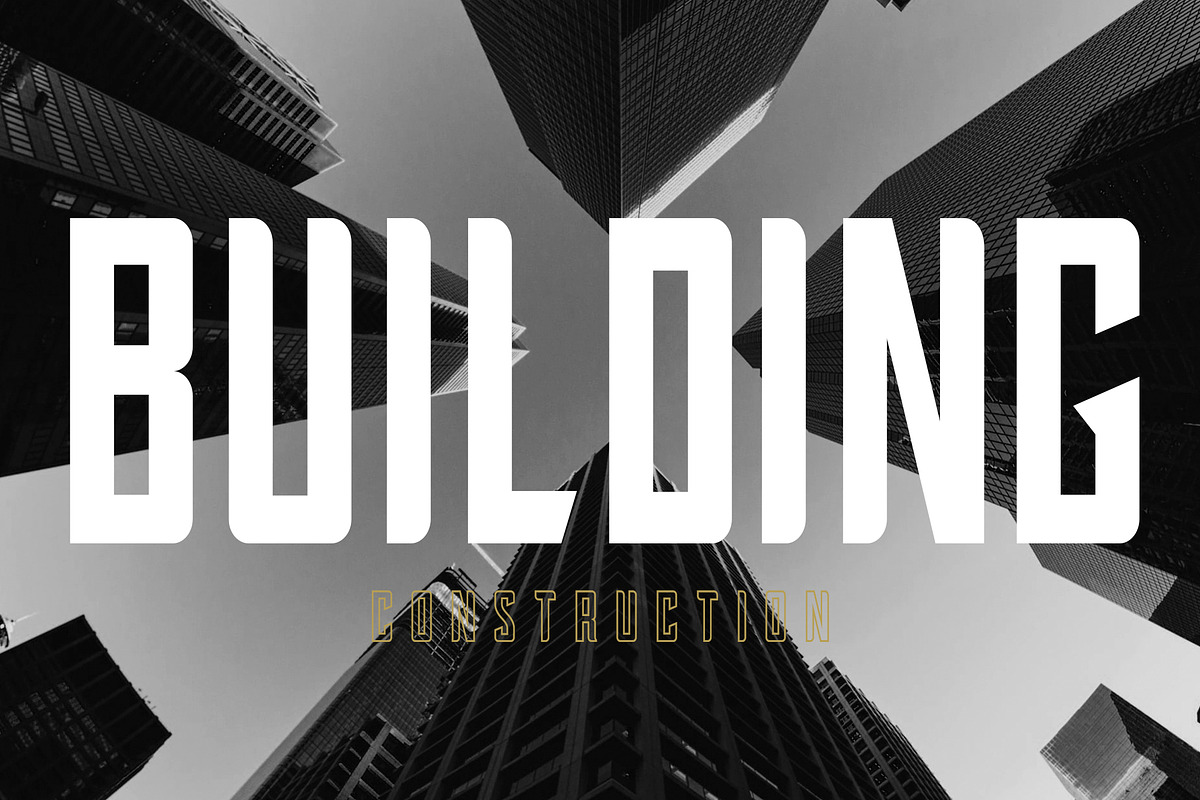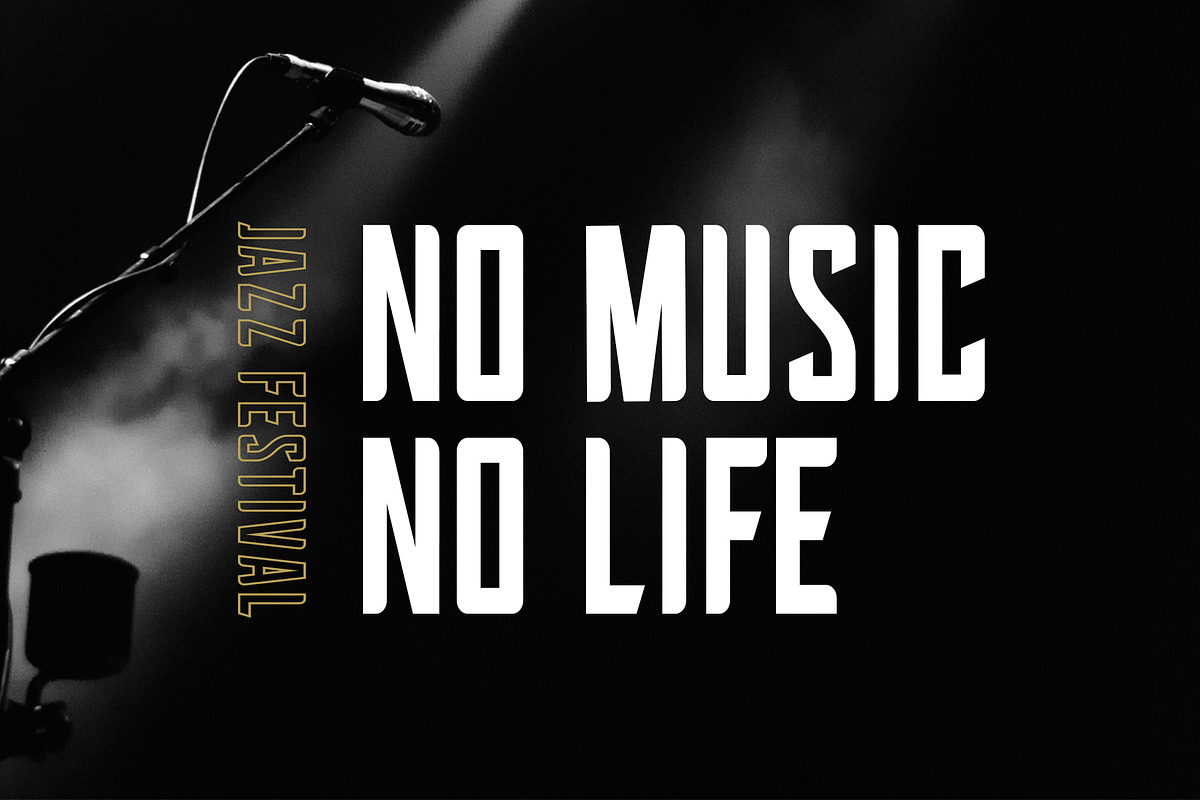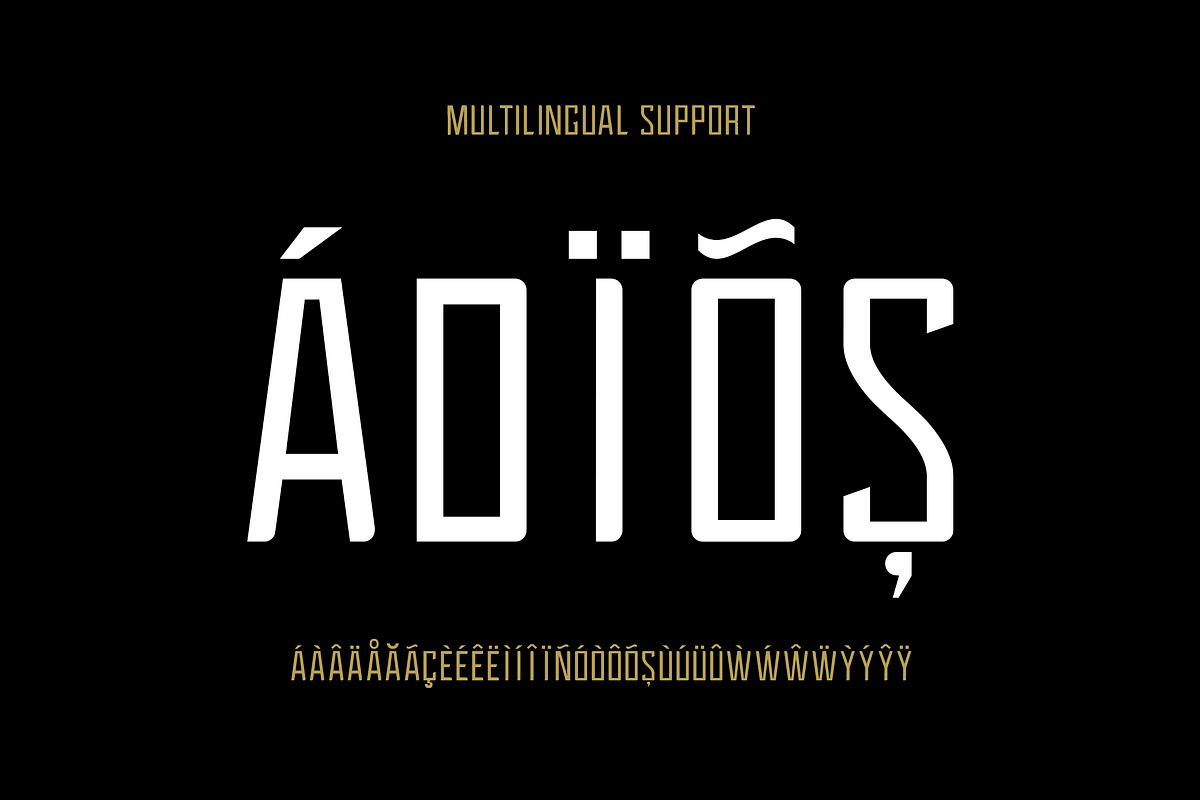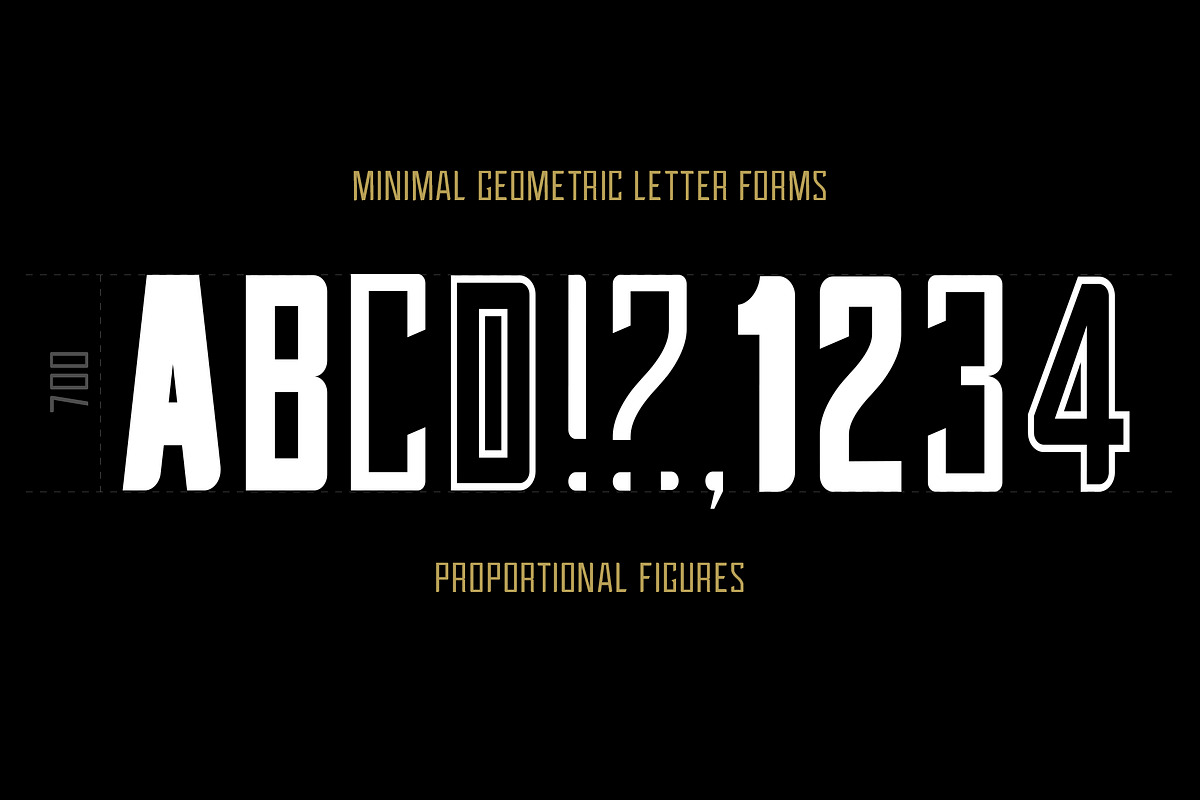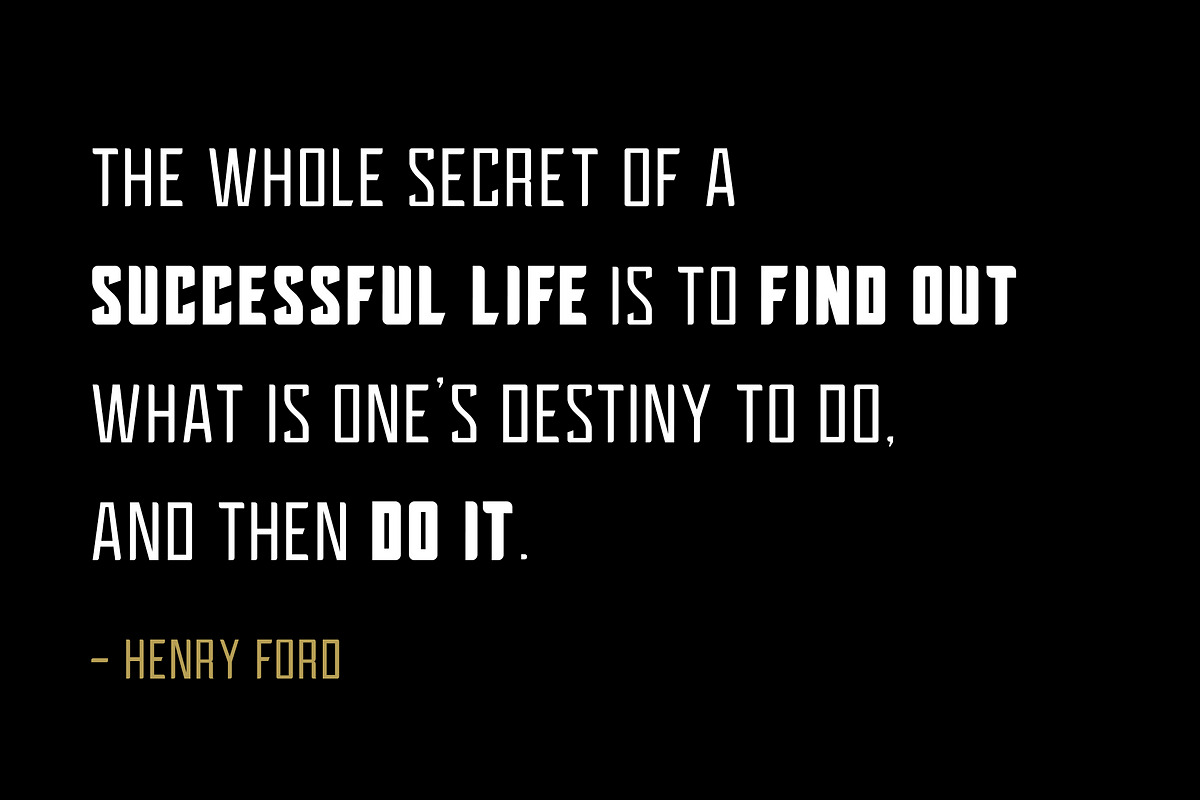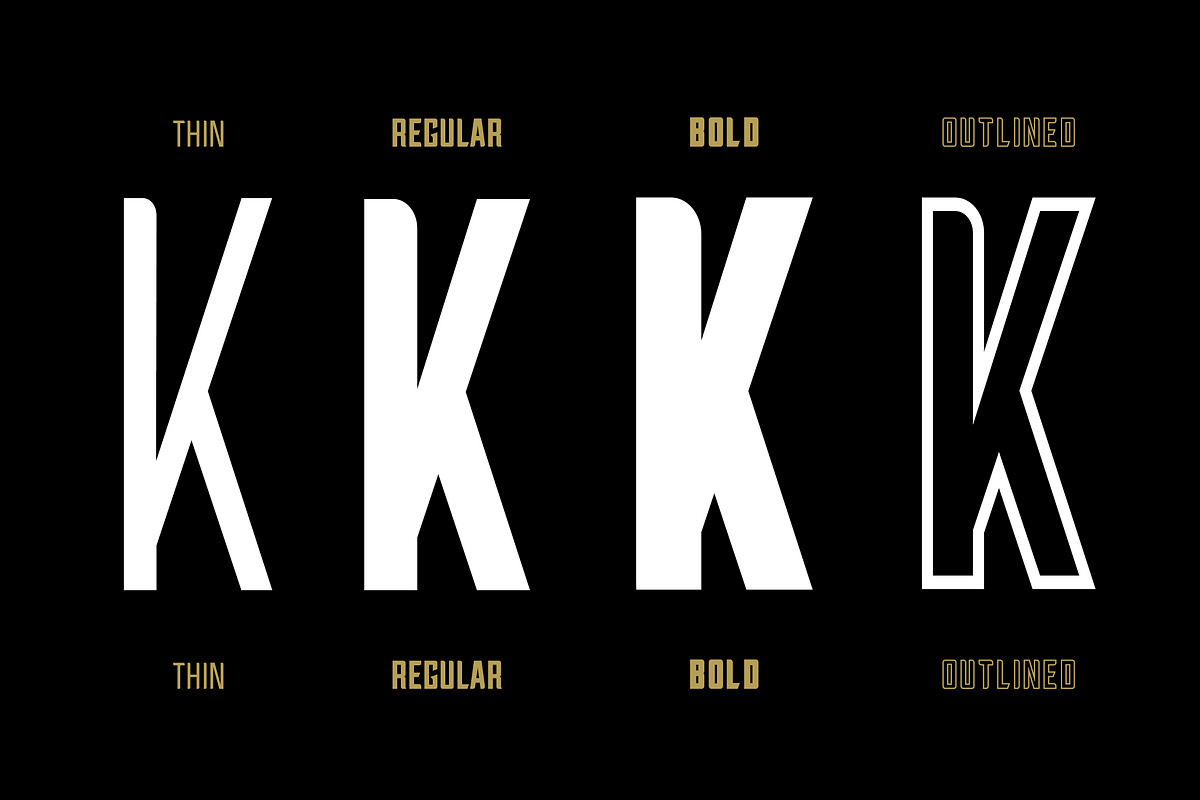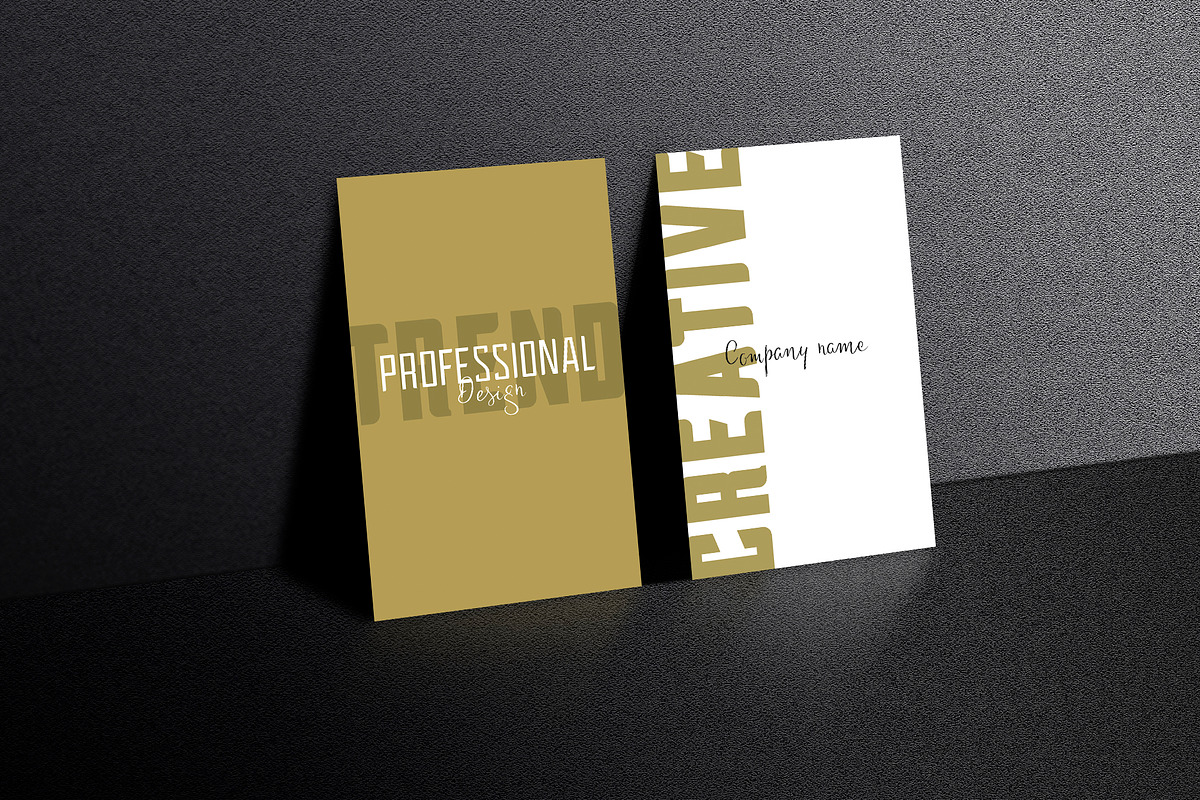
MOBILE Sans Serif Font Family
MOBILE is a strong condensed sans serif font family. All letterforms have balance of hard lines and smooth curves. This dynamic and authoritative font family can extend your possibilities in design and give a real modern feel to any project.
MOBILE will be perfect for logo, packaging, greeting cards, presentations, headlines, lettering, posters, branding, quotes, titles, magazines headings, web layouts, art quote, typography, advertising, invitations, packaging design, books, book title, and nearly any creative design.
MOBILE Bold - dynamic and commanding
MOBILE Regular - midground between light and bold
MOBILE Thin- quiet and delicate
MOBILE Outline - edgy and engaging
- MOBILE contains three weights, one outline, language support, uppercase letters, numbers & punctuation.